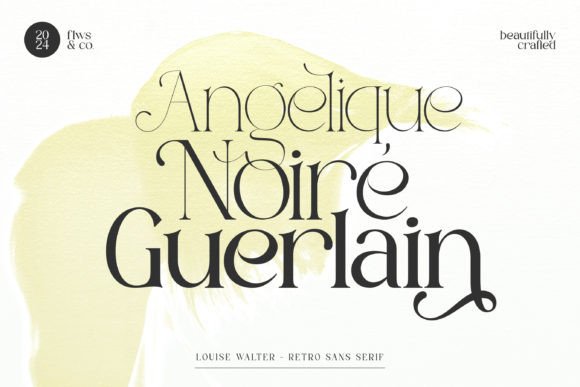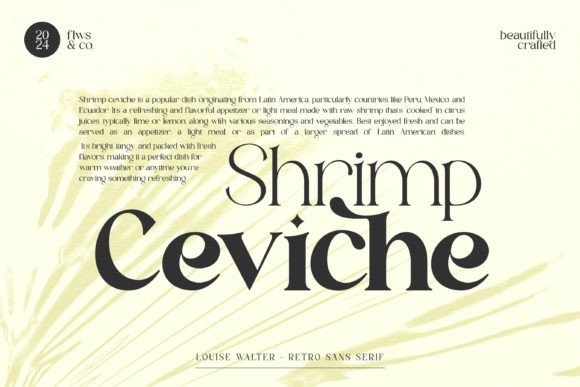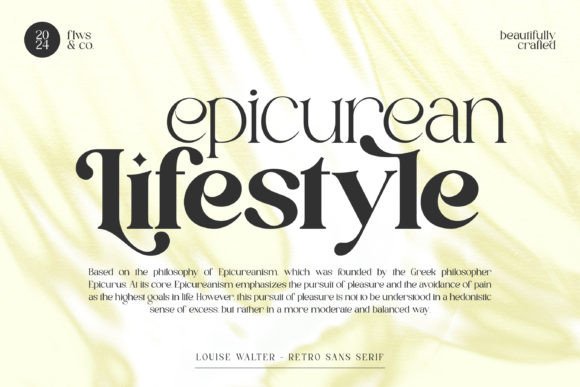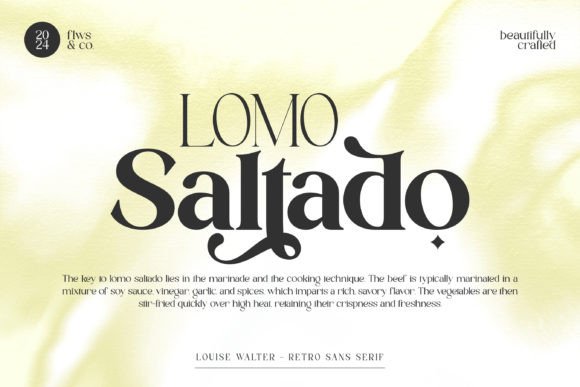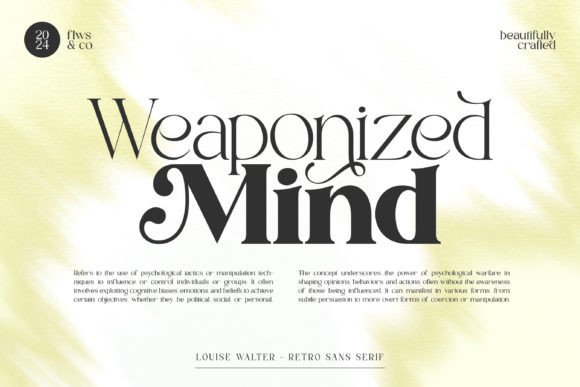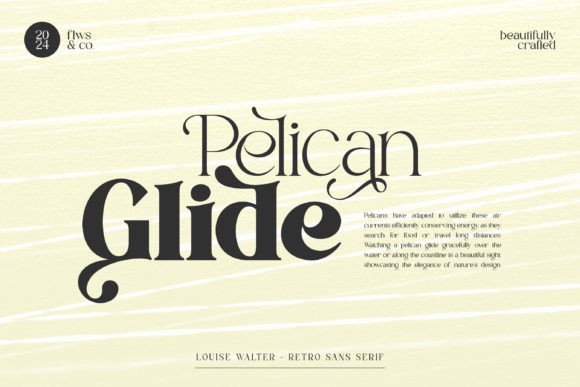
Introduction to Louis Walter Font
Step back in time with “Louis Walter,” a modern retro serif font family that combines the charm of vintage typography with contemporary sophistication.
Perfect for branding, editorial design, and more, Louis Walter offers versatility and elegance in every letter .
Key Features of Louis Walter Font
Why Choose Louis Walter Font?
Louis Walter Font offers exceptional quality and versatility, making it a valuable addition to your design toolkit. Whether you’re creating for personal projects or commercial use, Louis Walter Font delivers professional results.